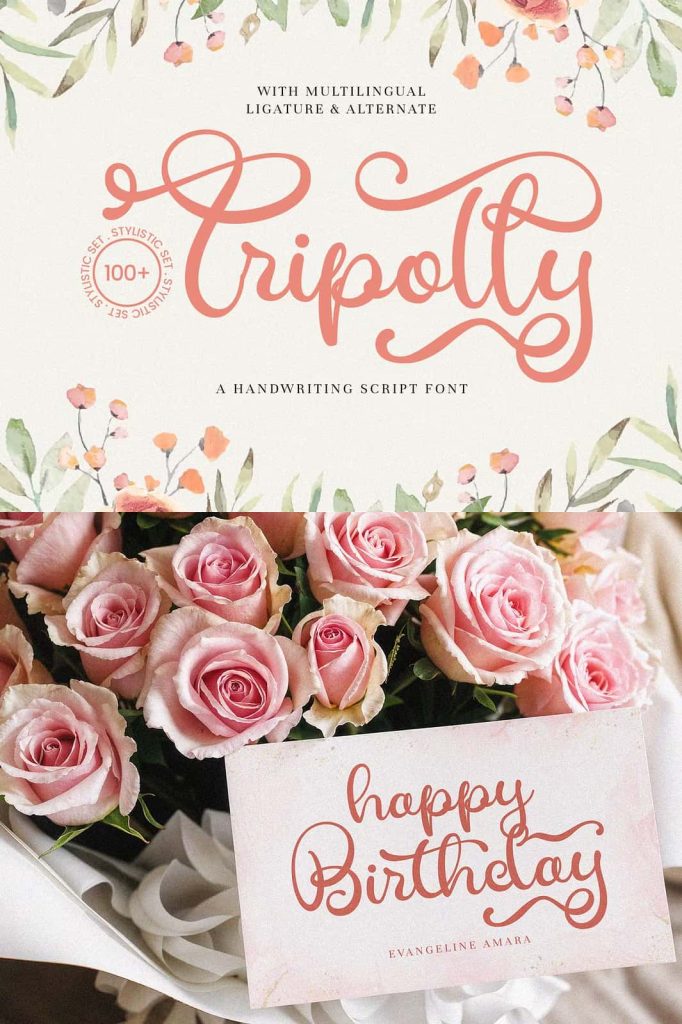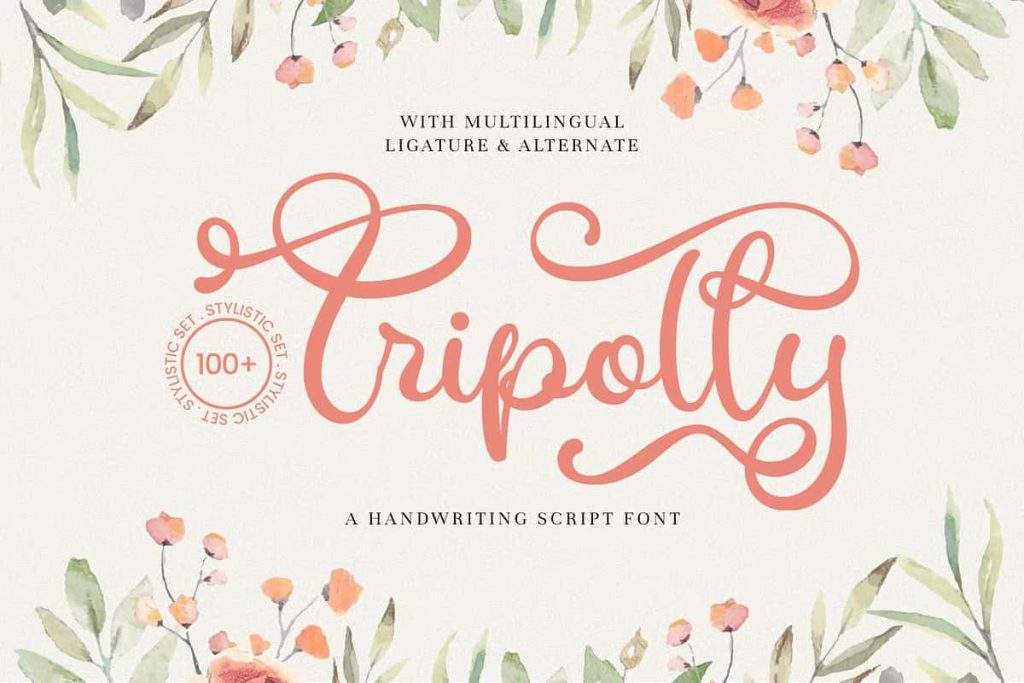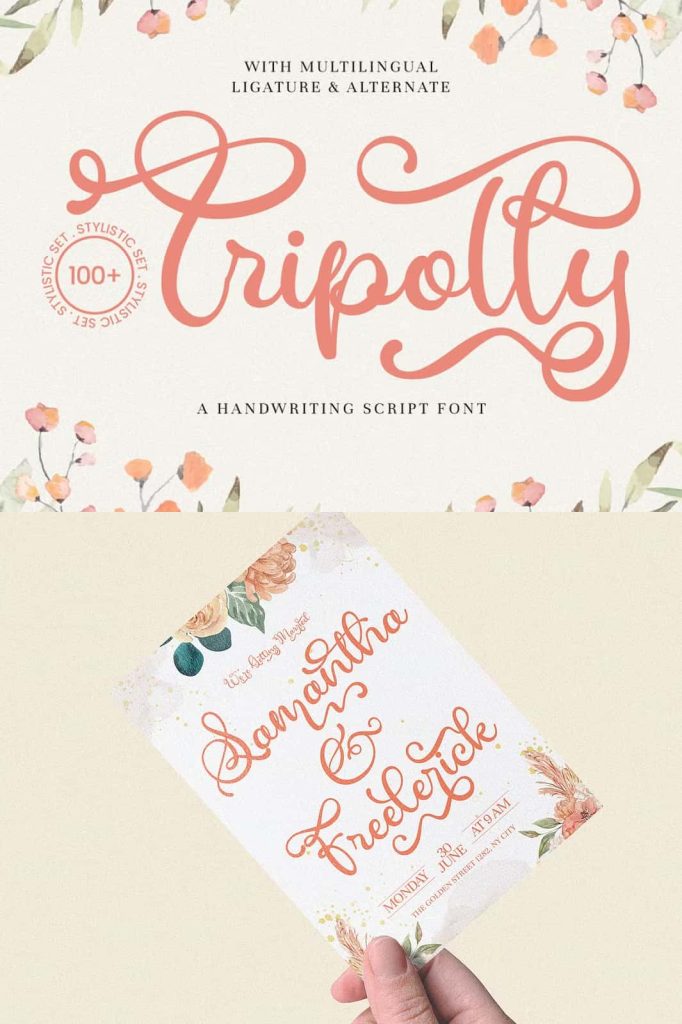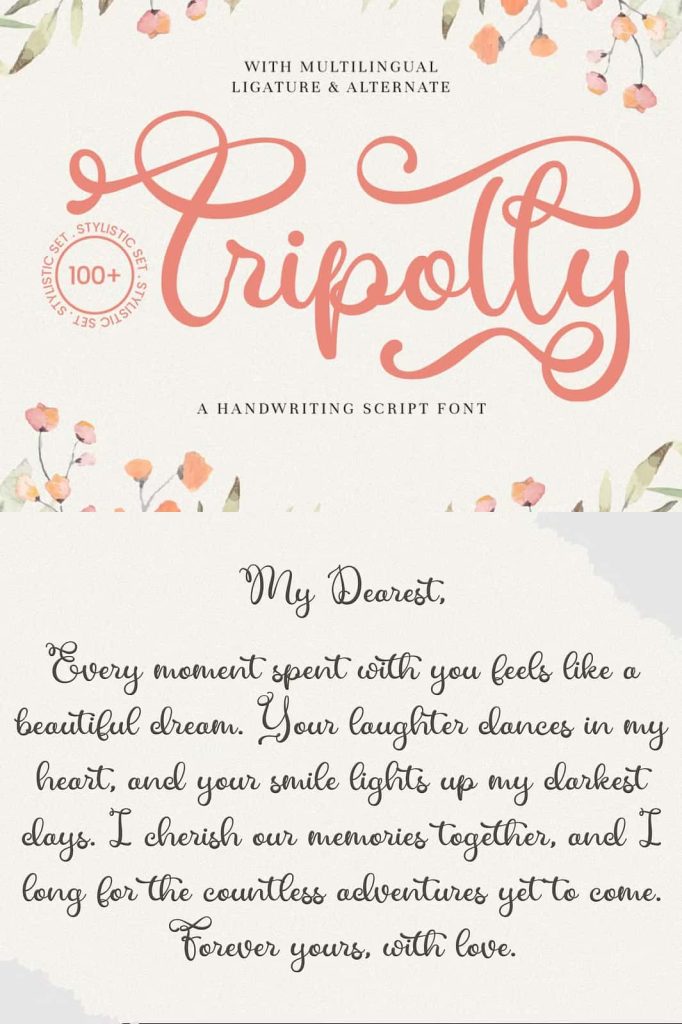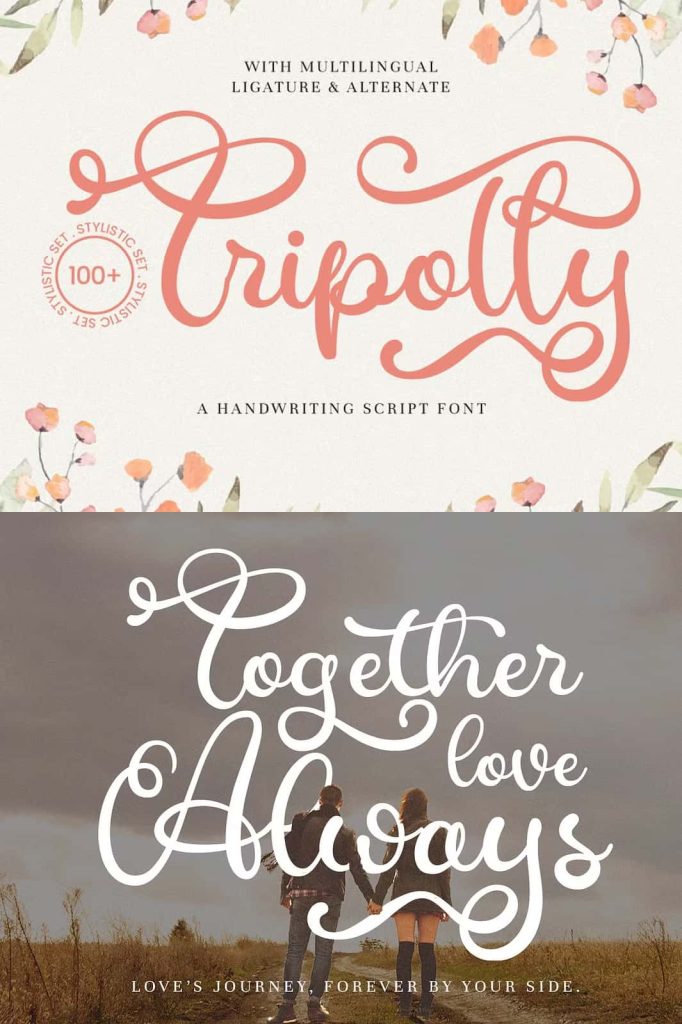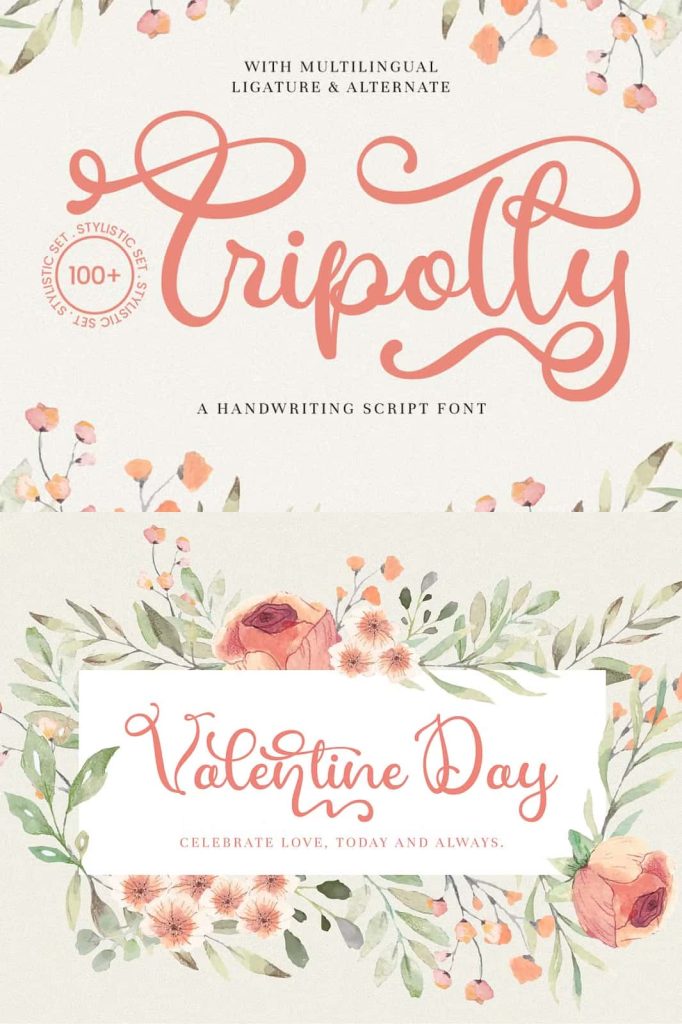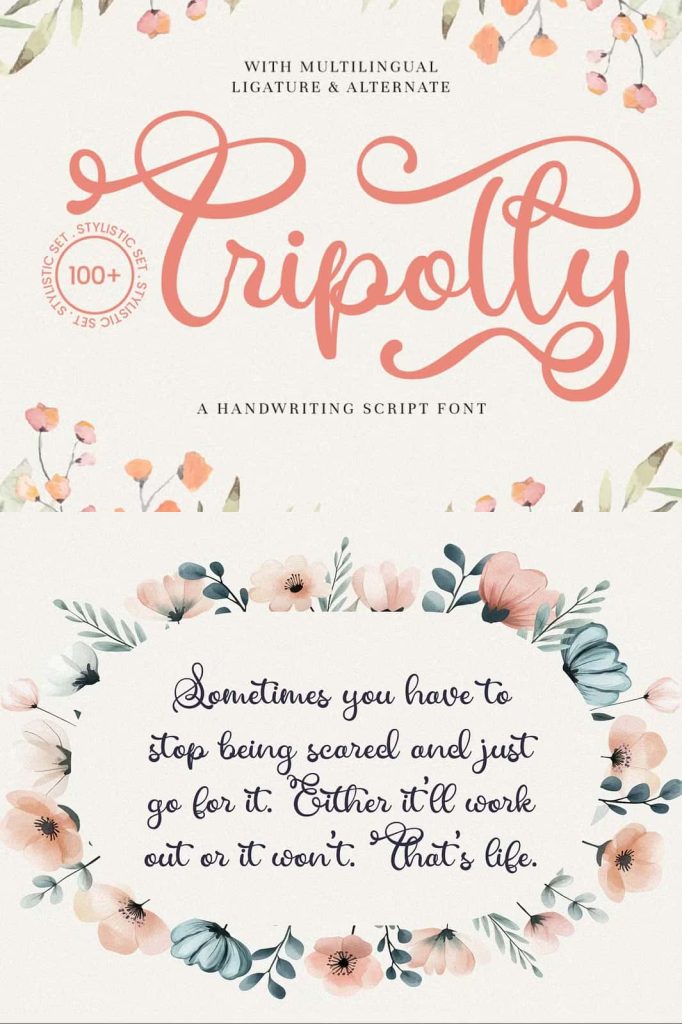
Tripolly – Handwriting Script Font
Stylish handwriting script font with smooth, natural flow and delicate curves—perfect for wedding invitations, logos, quotes, branding, and adding a personal, creative touch to designs
Tripolly – Handwriting Script Font
Stylish handwriting script font with smooth, natural flow and delicate curves—perfect for wedding invitations, logos, quotes, branding, and adding a personal, creative touch to designs